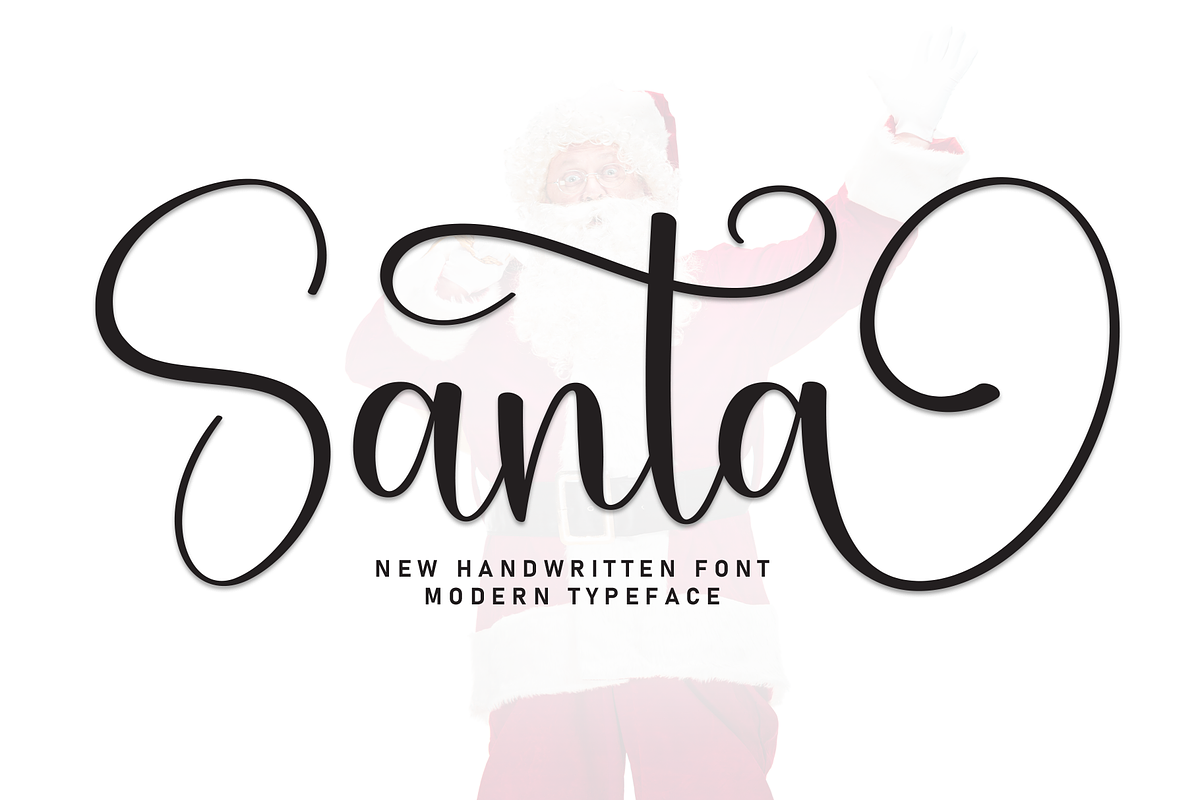
Santa | Script Font Free Download
Add a festive, handwritten touch to your designs with Santa | Script Font Free Download. This elegant and playful script font captures the charm of holiday calligraphy, making it perfect for Christmas cards, invitations, seasonal branding, and social media graphics that need a warm, personalized feel.
Santa features smooth curves, flowing strokes, and delicate connections between letters, giving your typography a light and festive look. It includes uppercase and lowercase letters, numerals, punctuation, and ligatures, making it ideal for testing creative, seasonal layouts.